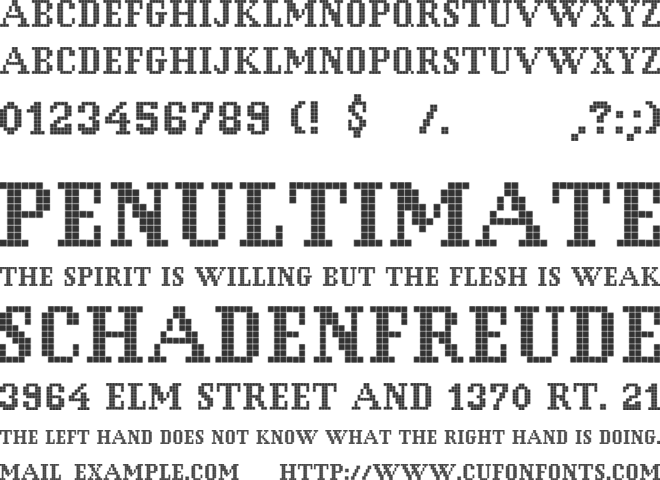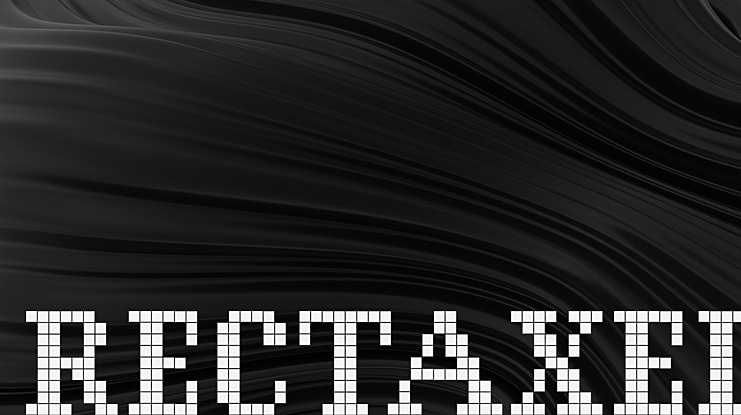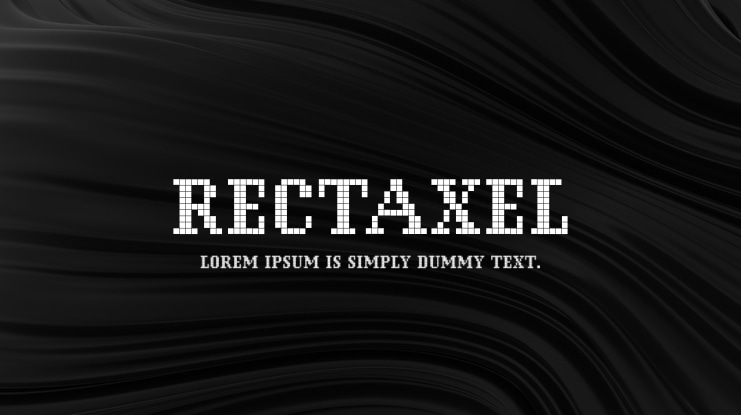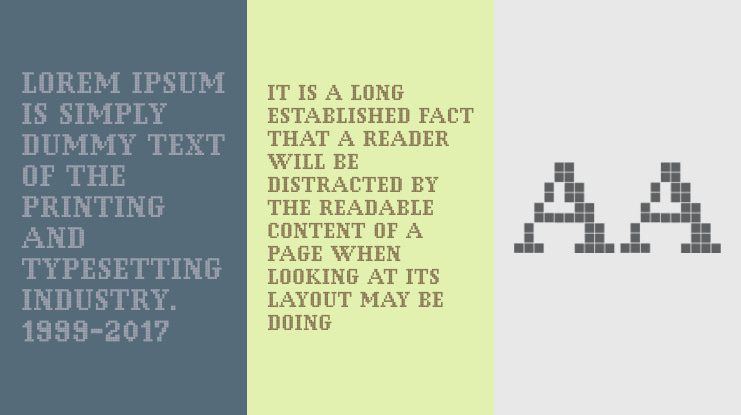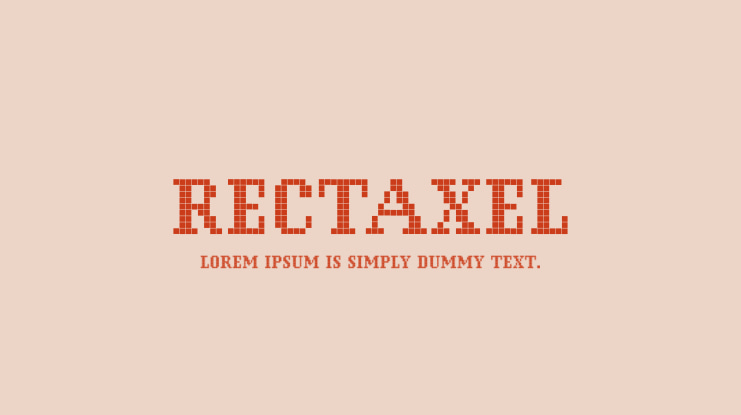
RECTAXEL Font
ari budi setiawan
Rectaxel is suitable for any branding projects, logo, app, game, social media posts, product packaging, product designs, advertisements, label, photography, watermark, invitation, stationery and any projects